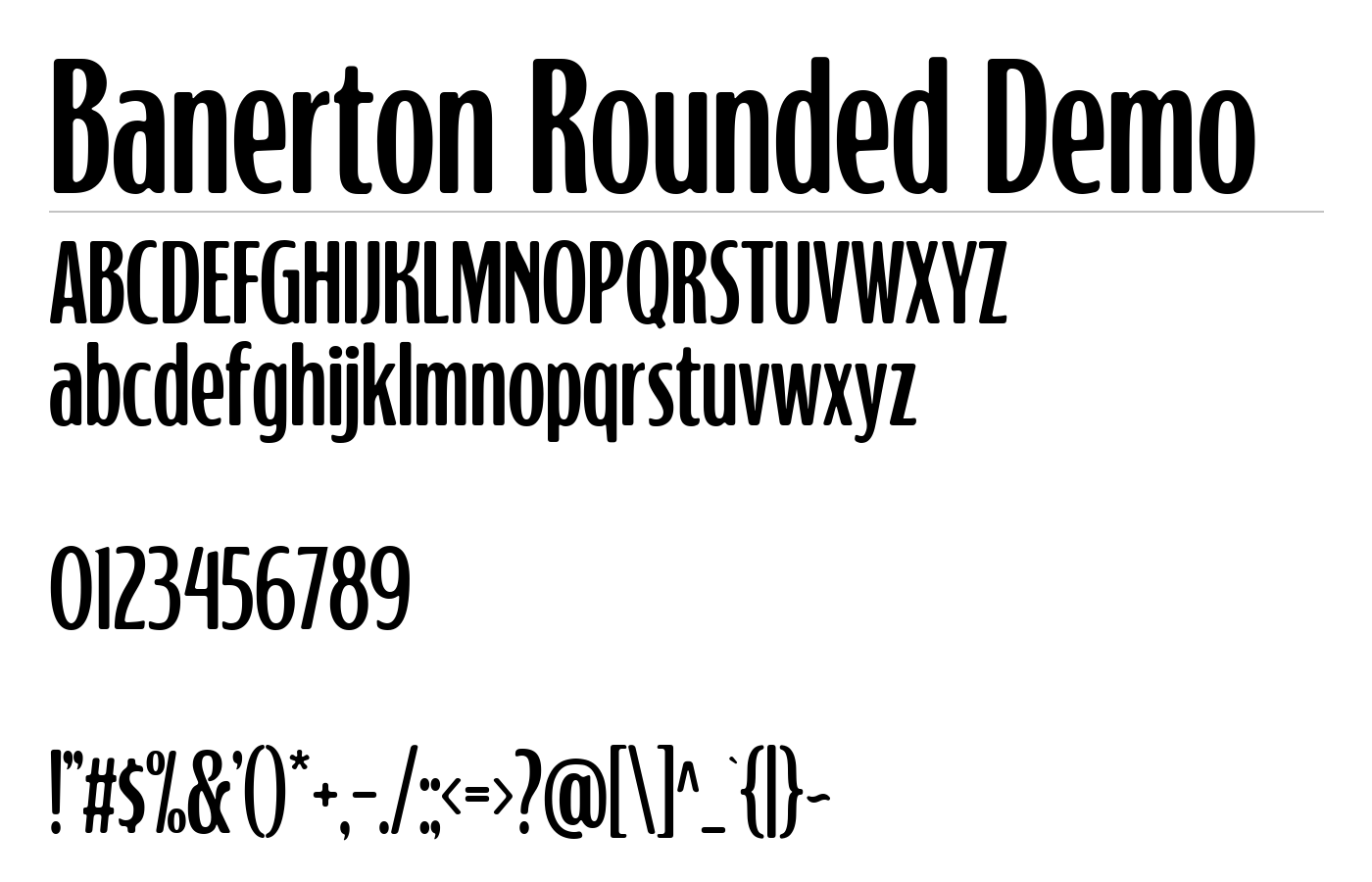
Banerton Rounded Demo is a tall, narrow sans serif font with rounded edges that give it a friendly yet modern appearance. Its condensed letterforms and consistent stroke weight make it ideal for impactful headlines and branding that need a clean, approachable style. This font works particularly well for contemporary design projects seeking a fresh, inviting tone without sacrificing readability.
Banerton Rounded Demo Font